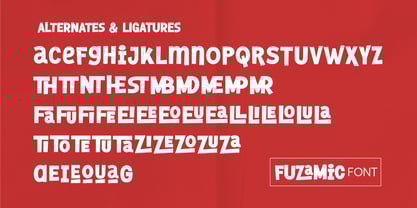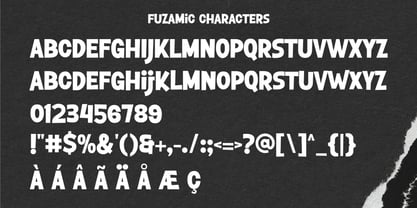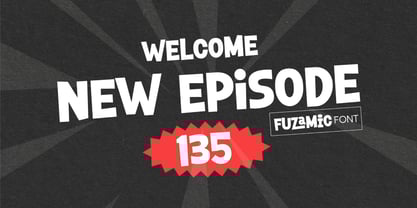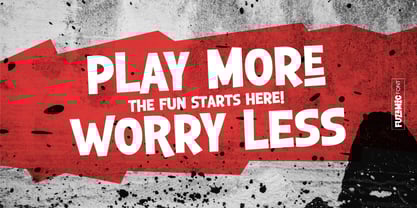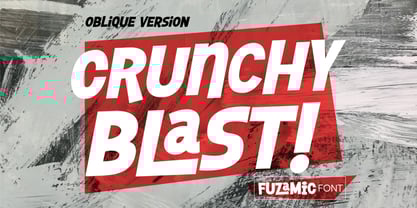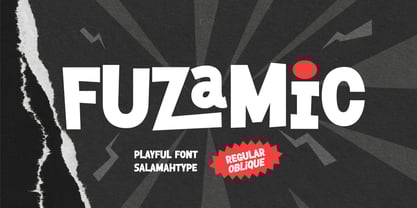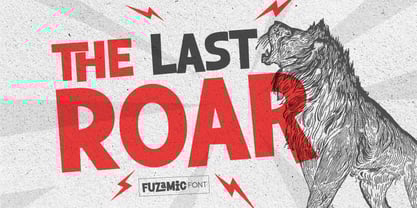
Fuzamic
by Salamahtype
The Fuzamic Font Family was designed by Aswangga Sadike and published by Salamahtype. Fuzamic contains 2 styles and family package options. More about this family
Fuzamic is a vibrant and playful comic-style font that infuses joy and personality into your creative projects. Drawing inspiration from the dynamic aesthetics of comic books and hand-drawn lettering, this typeface embodies a cheerful and friendly vibe, making every word come alive! Fuzamic features both uppercase and lowercase letters with distinctive shapes, providing endless possibilities for creative typography. Packed with numerous alternates and ligatures, it allows for mixing and matching characters, resulting in a more natural and dynamic design. This font also supports multilingual characters, making it ideal for global projects that require both style and versatility. Whether you’re crafting a comic title, designing for a kids’ brand, creating posters, t-shirts, packaging, or YouTube thumbnails, Fuzamic delivers the perfect pop of fun and energy. Its bouncy style and comic-inspired personality ensure it stands out in any design context. **Features:** - Uppercase & Lowercase Letters - Alternates & Ligatures - Multilingual Support
Designers: Aswangga Sadike
Foundry: Salamahtype